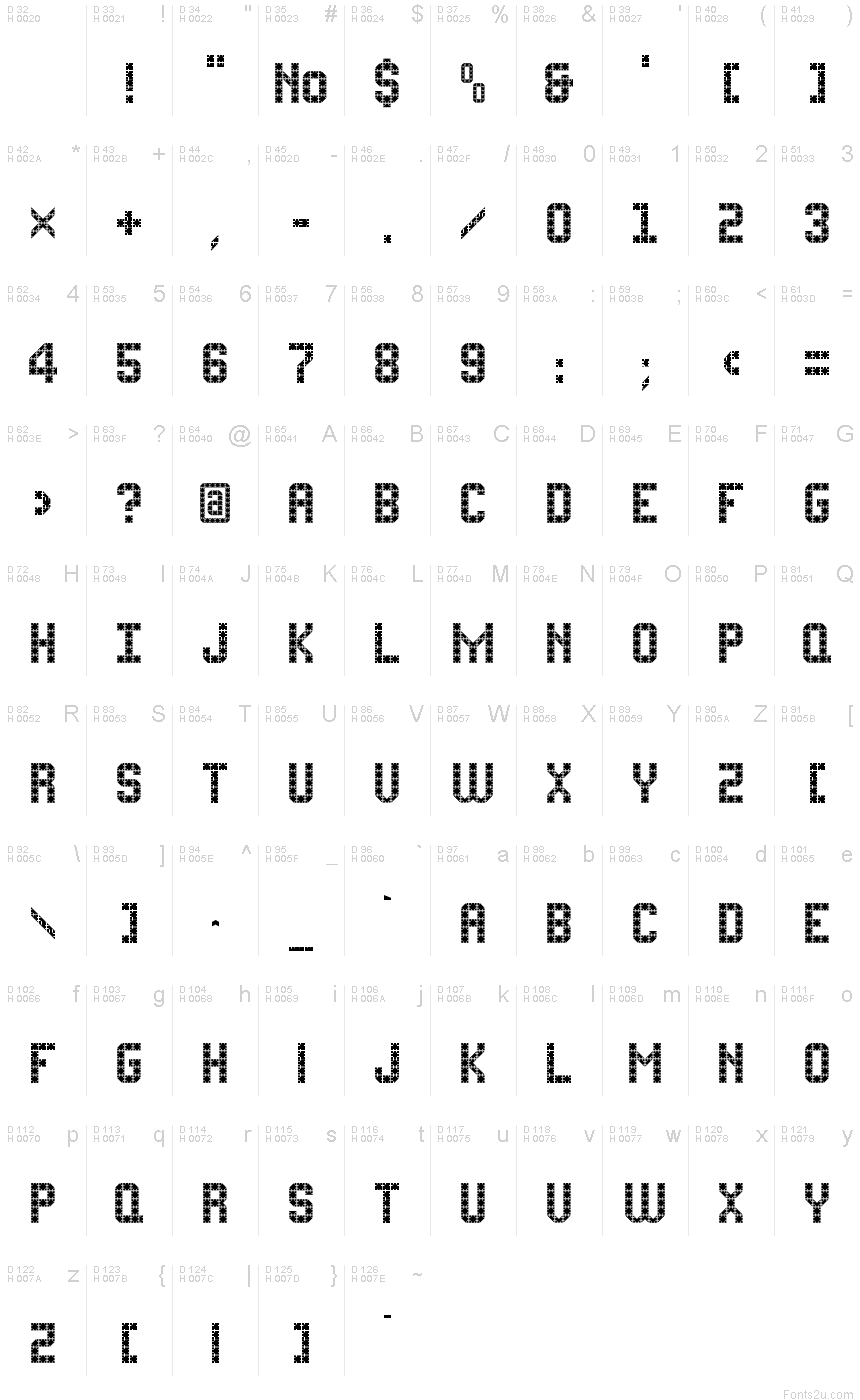
FlatPack
Inspired by a bag of interlockable 'flat-pack' cardboard pieces received from the artist Gavin Peacock as part of his Flat Pack Mail Art project.